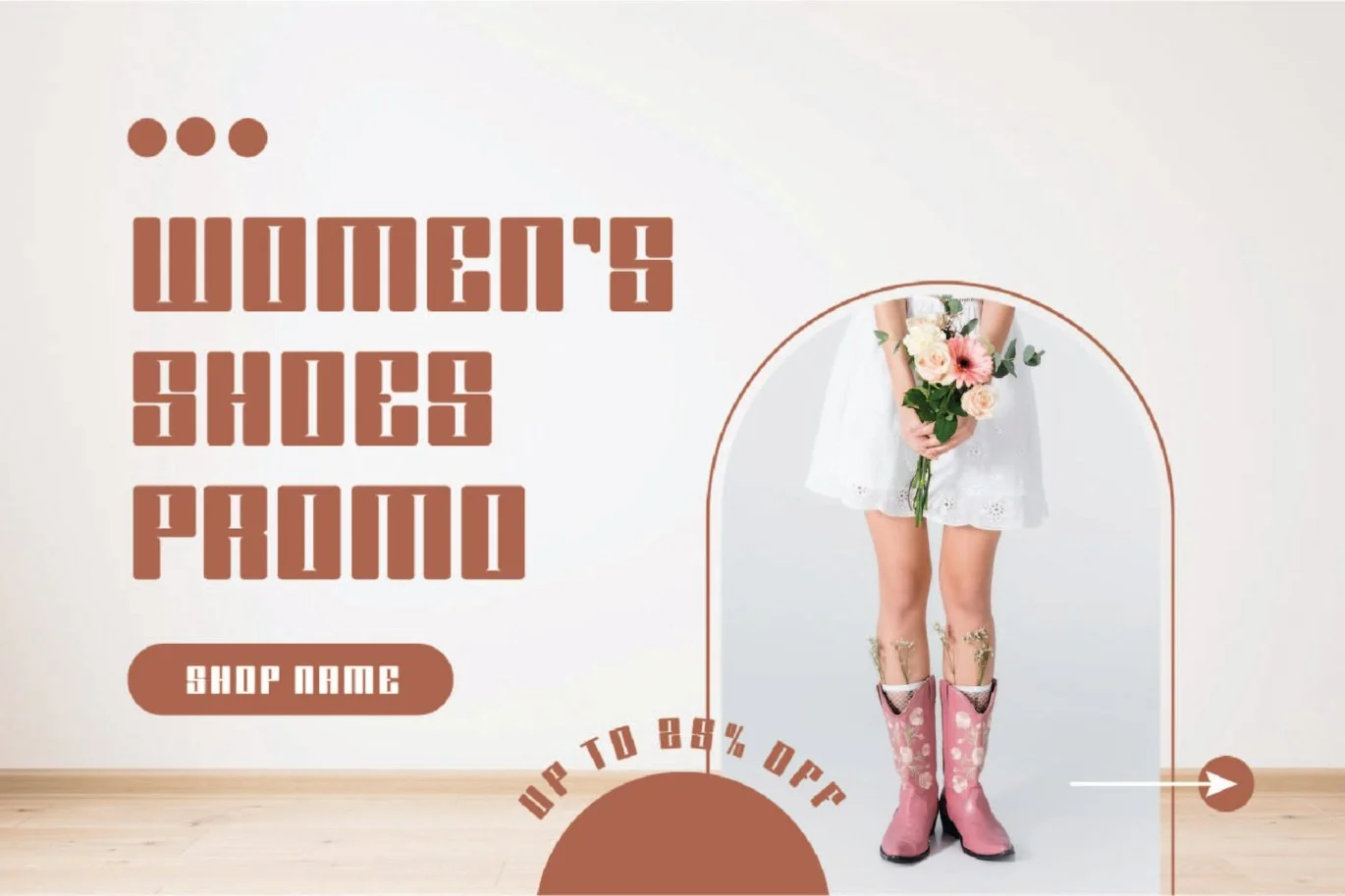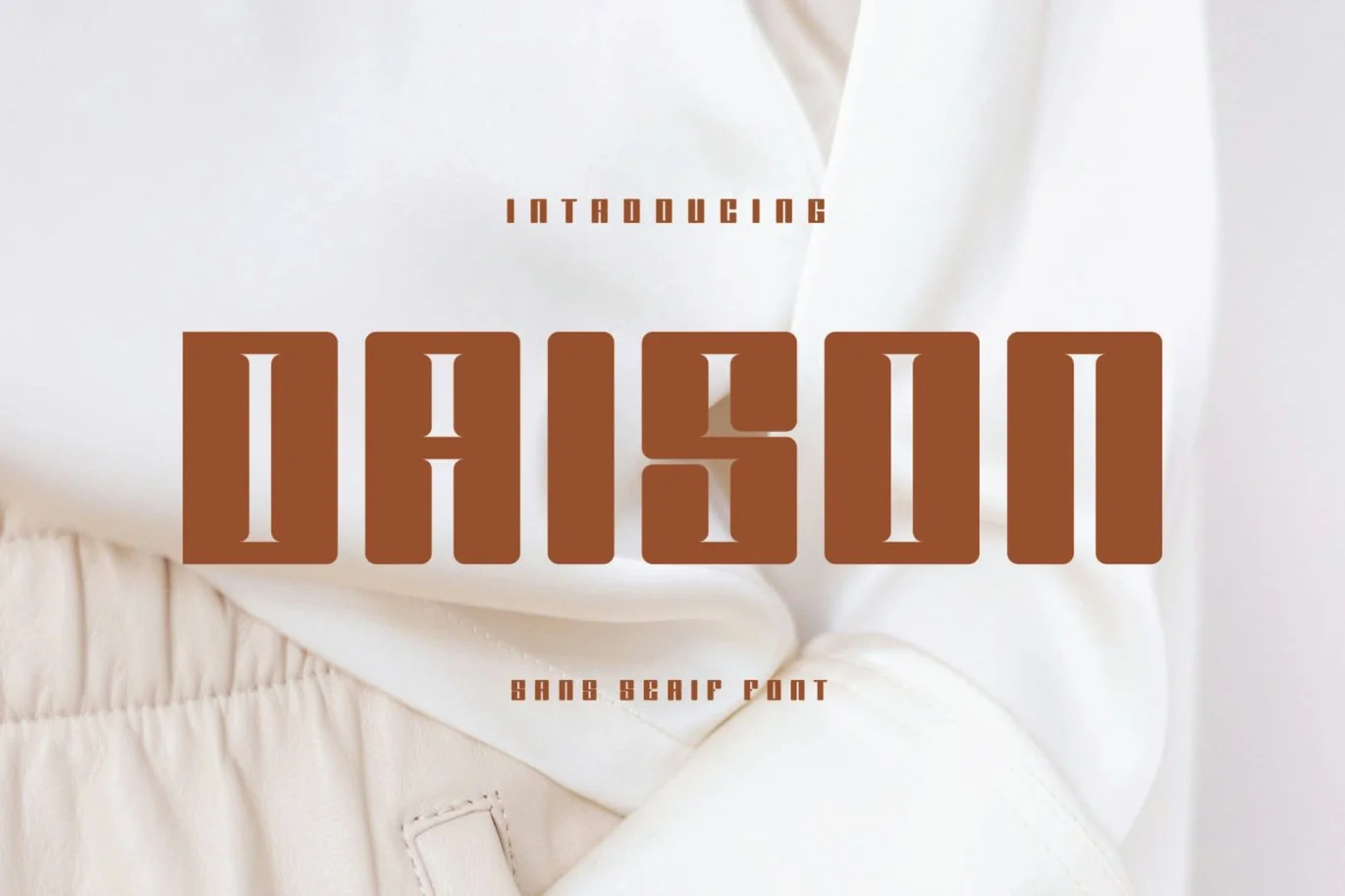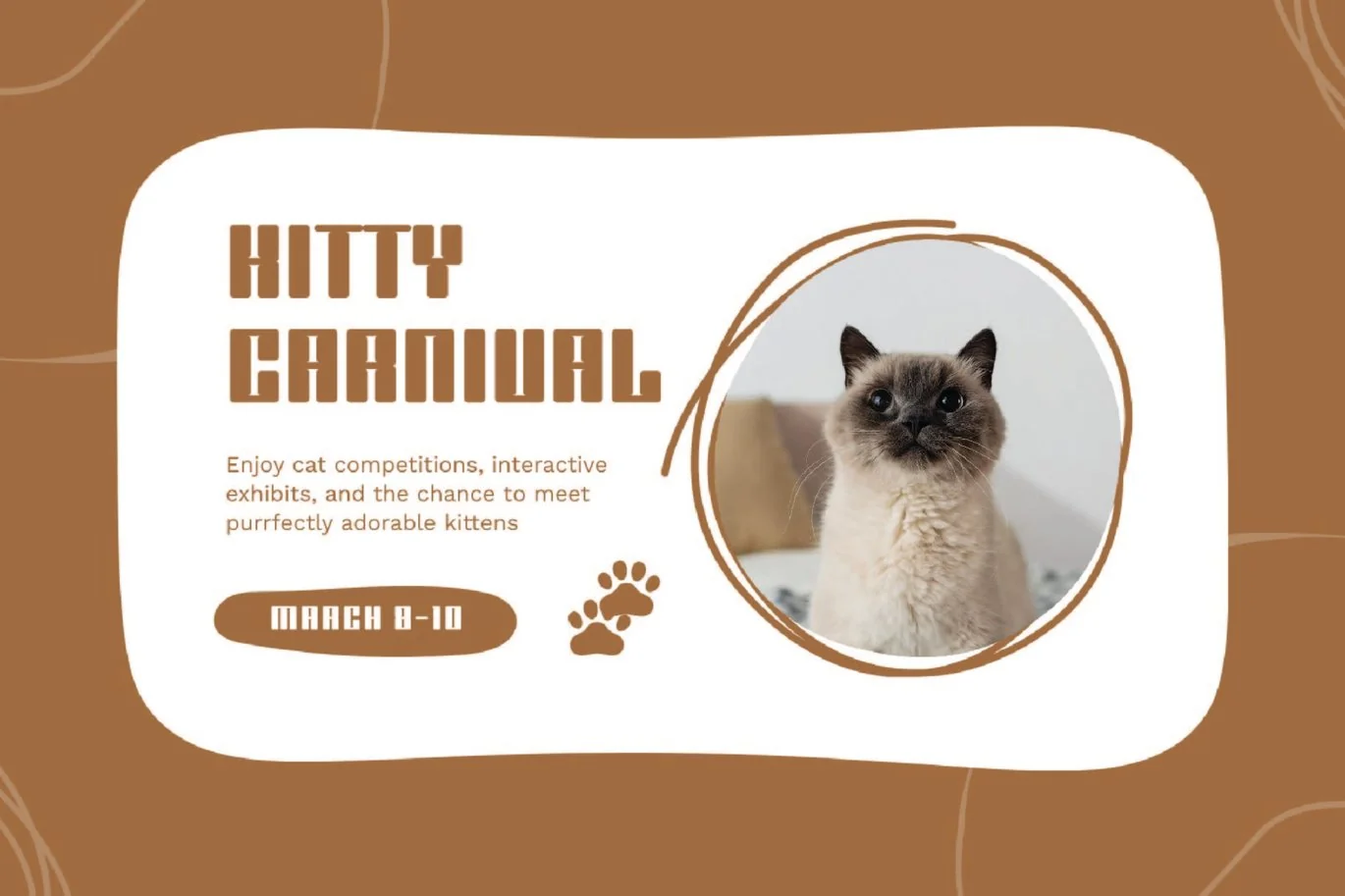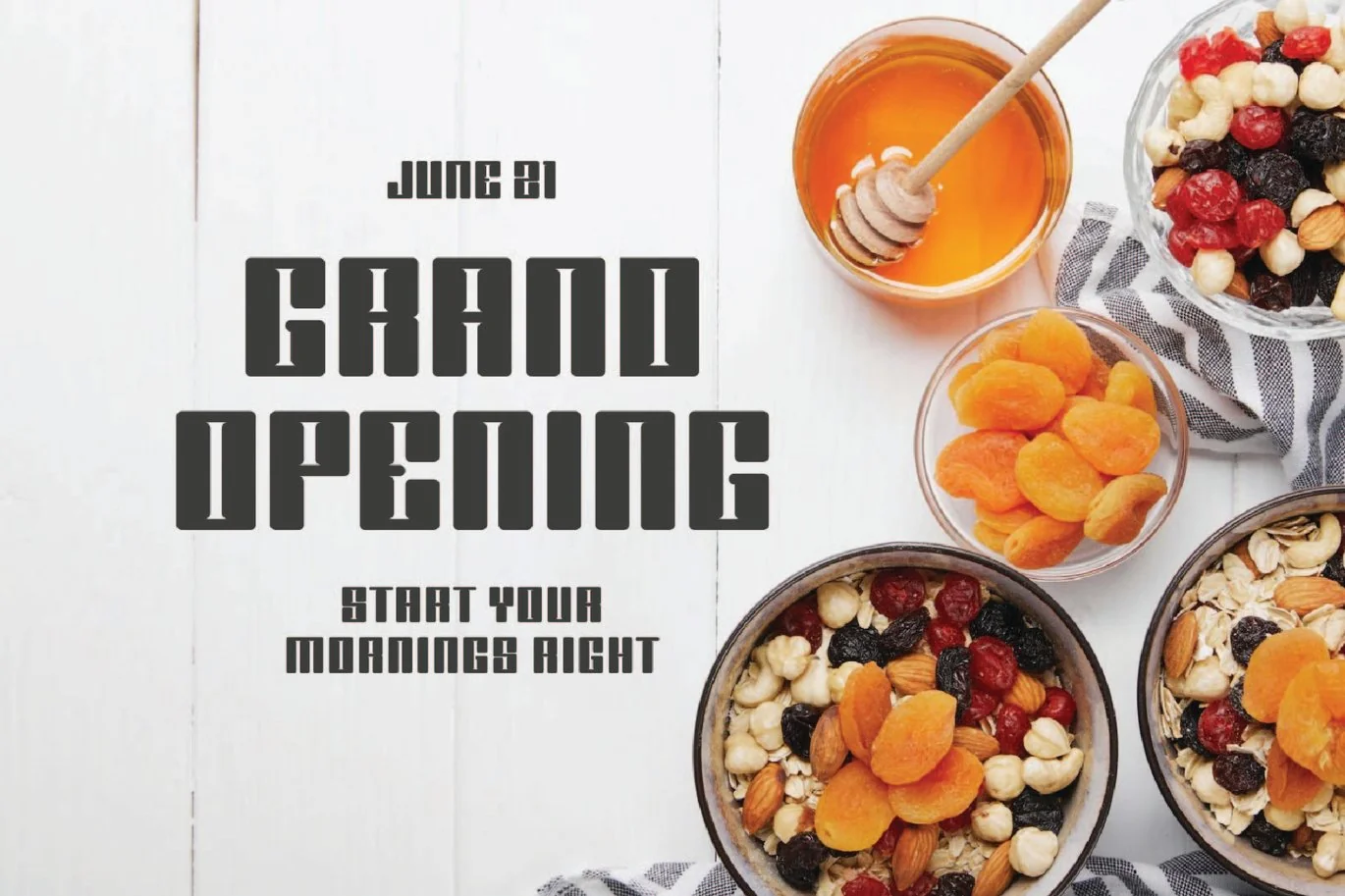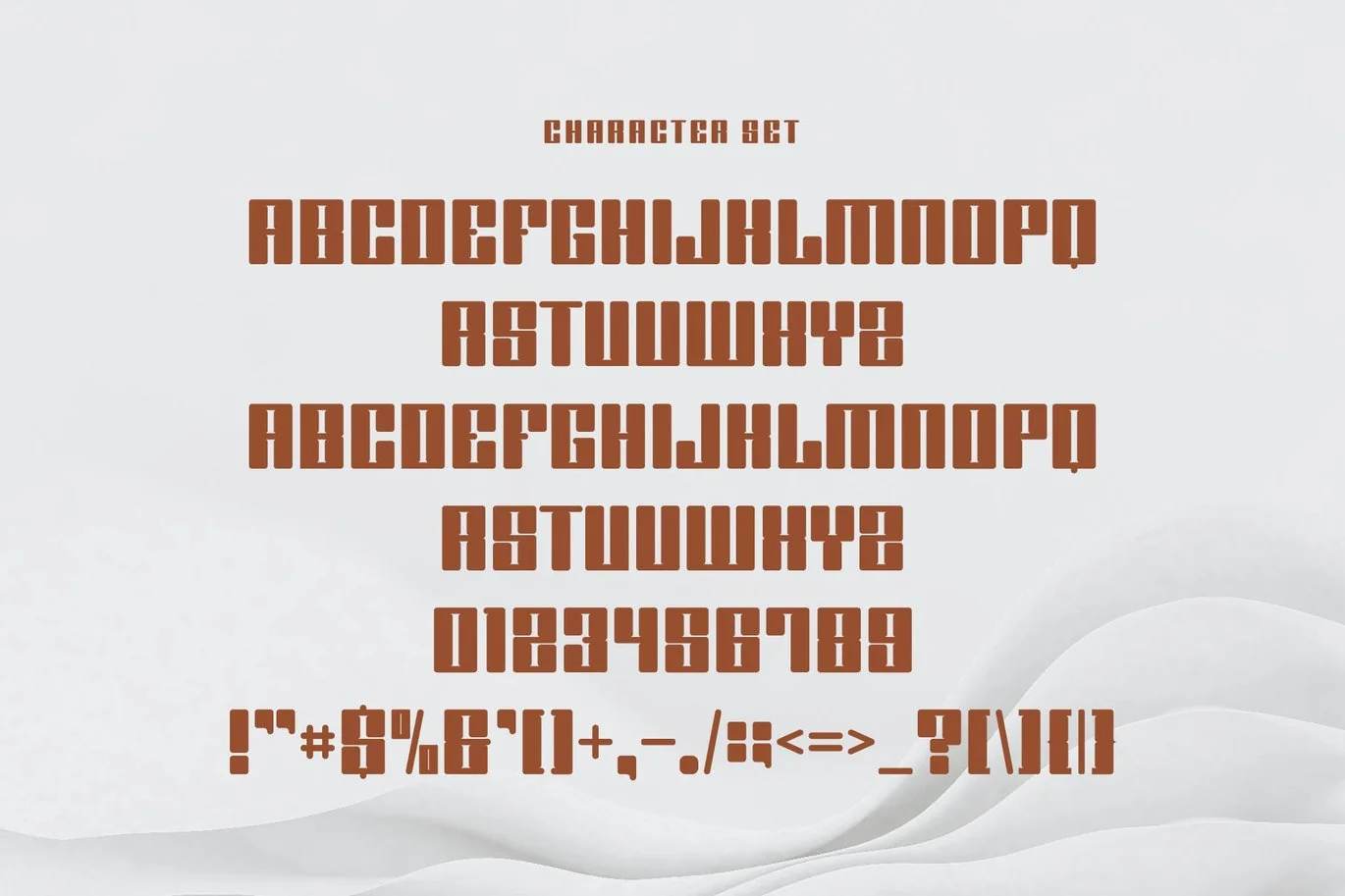
Daison – Sans Serif Font
Daison Sans Font Typeface inspired by the famous minimalist logo perfect for the purposes of designing templates, brochures, videos, advertising branding, logos, invitation, layout design, elegant crafting, beauty design and other.